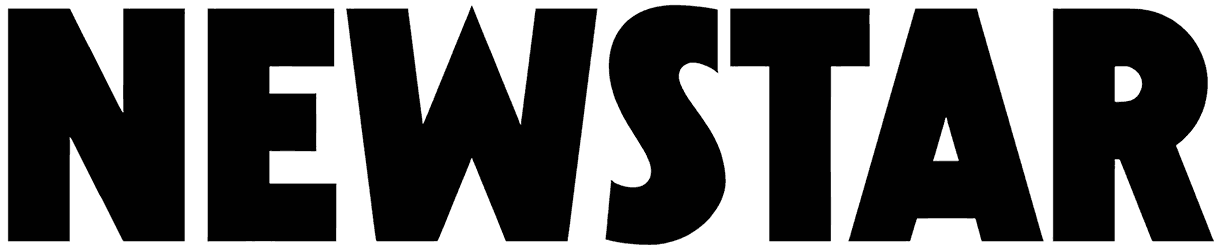
Newstar Font
You see, you don’t even have to work that hard to name a mall, a technology magazine, a construction company, or even a brand of sneakers. You can just pick Newstar modern font, and just like that, most of the work is done.
Known to bring power to your lettering and imply superiority about your business, Newstar is a thick 80s sans serif font, comprised only of big, bulky capital letters, worthy of starring in your logo designs, website banners, and more.